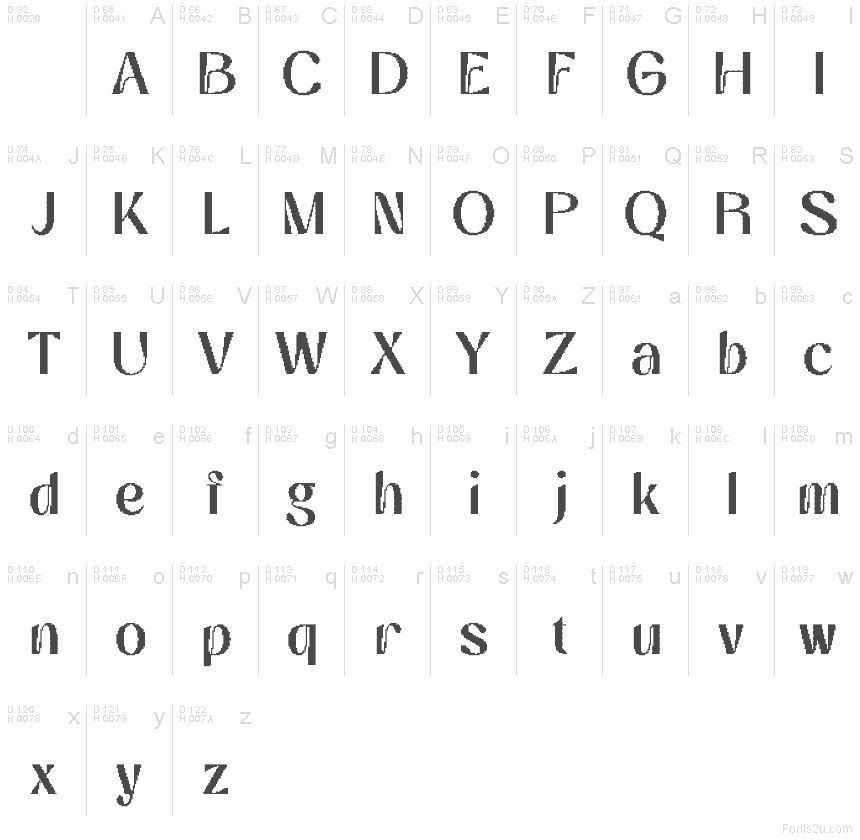
Mulinar Disco font by Craft Supply Co. is a free regular eroded display font. It stands out with tall, slightly condensed forms that look rubbed down to a shimmer—grainy vertical striations carve through each stroke like scratched vinyl under neon. Curves stay elegant while the edges feel scuffed and lived-in, giving headlines a tactile, stage-lit glow without losing legibility.
Using Mulinar Disco, you get instant nightlife energy with built‑in texture. It shines on gig posters, club flyers, album covers, festival branding, vintage packaging, and bold editorial headers; it also works for social promos and typography‑led merch. This free font loves big sizes and tight tracking, and pairs cleanly with a simple geometric sans to keep body copy crisp while the display steals the spotlight.